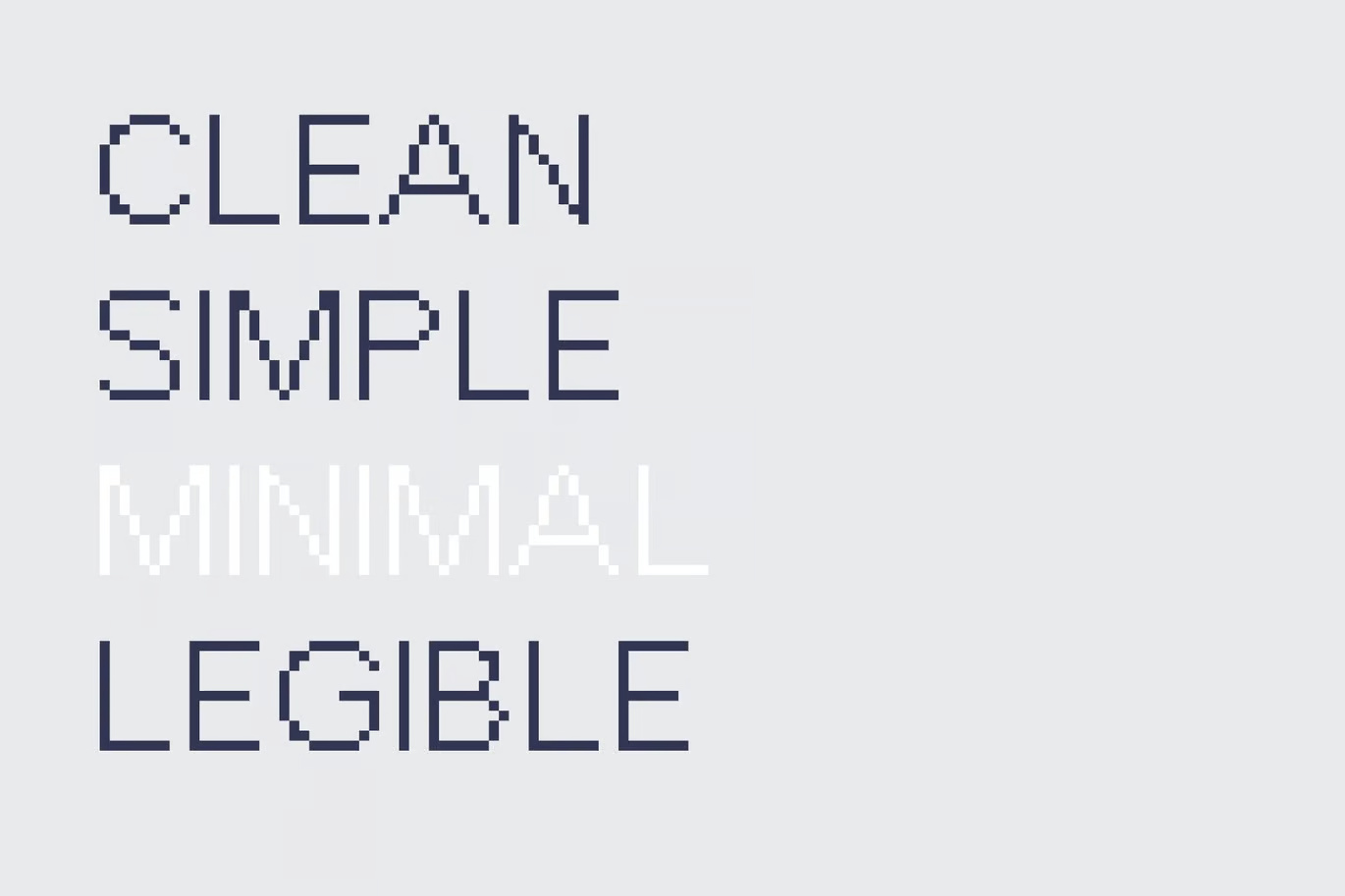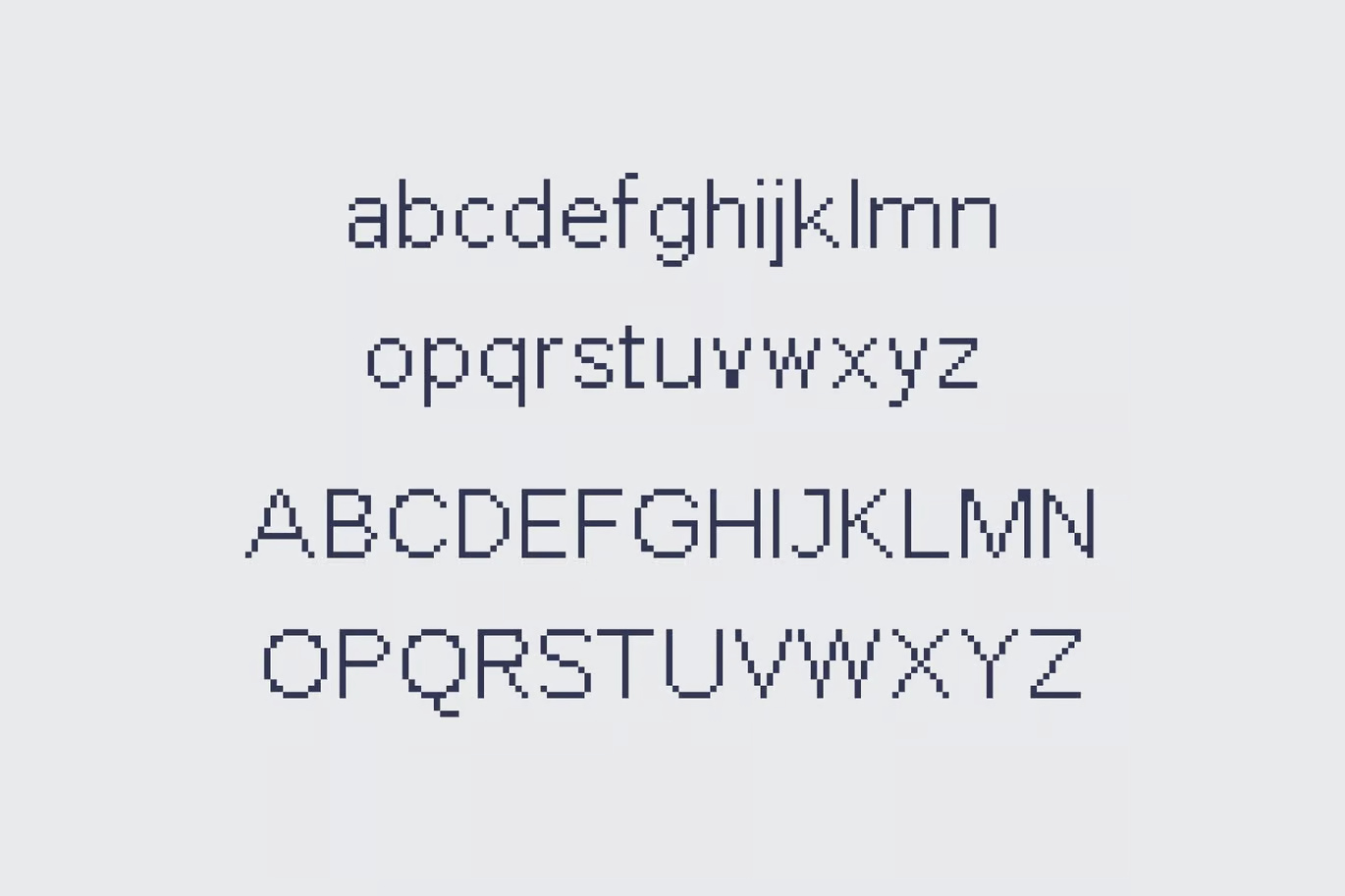
Meet Chonky Pixel, a bold yet refined 8-bit typeface that combines retro charm with modern clarity. Unlike many pixel fonts, Chonky Pixel is designed for maximum legibility, making it perfect for professional projects, clean UI design, branding, and game development.
With its crisp lines, balanced proportions, and minimalistic pixel structure, this typeface ensures your text is easy to read at any size while maintaining that nostalgic pixel aesthetic. Whether you’re crafting a retro-inspired brand, a sleek gaming interface, or stylish digital artwork, Chonky Pixel delivers bold impact with a polished, contemporary feel.
Perfect for designers who love pixels but need clarity, Chonky Pixel is here to upgrade your 8-bit game while keeping things sharp, stylish, and timeless.